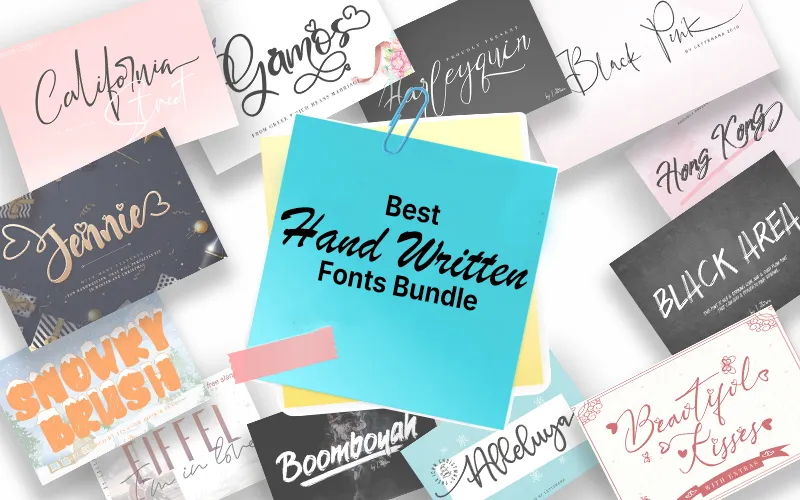
Make Each Word Stylish With The Best Hand Written Fonts!
Be it social media, web designs, print media or artworks – stand out from the crowd with this Best Selling Bundle! With this bundle, you’ll get a collection of 100+ Best Hand Written Fonts in 50 typefaces.
All the fonts included in this bundle comes with stylistic alternates, swash, titling, and multilingual support. A perfect blend of typographic and script styles, this fonts bundle is all you’ll need for packaging, branding and other editorial projects. With loads of OpenType features, this bundle will give your project the much required modern, elegant and casual flair.
50 Typefaces In This Best Hand Written Fonts:
- After Zero
- Alleluya
- Andora
- Angel Maleficent
- Art Maria
- Assinatura
- Aurora
- Beautiful Kisses
- Bestowens Family
- Black Area
- Black Pink Signature
- Boomboyah
- Black Pink Summer
- California Street
- Cubby Brush
- Darkness Of The Night
- Djoker State
- Eiffel In Love
- Fabregas
- Galgadot
- Gamos
- Halloween Story
- Handpick
- Happy Halloween
- Harleyquin
- Haruka
- Heanffe
- Hobenshaw
- Hongkong Script Brush
- Jennie
- Johnson Rock
- Kanaggawa
- Keraton
- Khaterine
- Margareta
- Mariagata
- Mariosa
- Onlyne
- Princess Berlianty
- Reindeer
- Right Now
- Rosse Signature
- Santeria
- Seronita
- Snowby
- Snowky Brush
- Summer Chery
- The Army Of God
- Tom Brother
- Yolanda Love Script
- Many fonts include multiple styles and bonus alternates.
Sneak Peek Into Some Of These Best Hand Written Fonts: